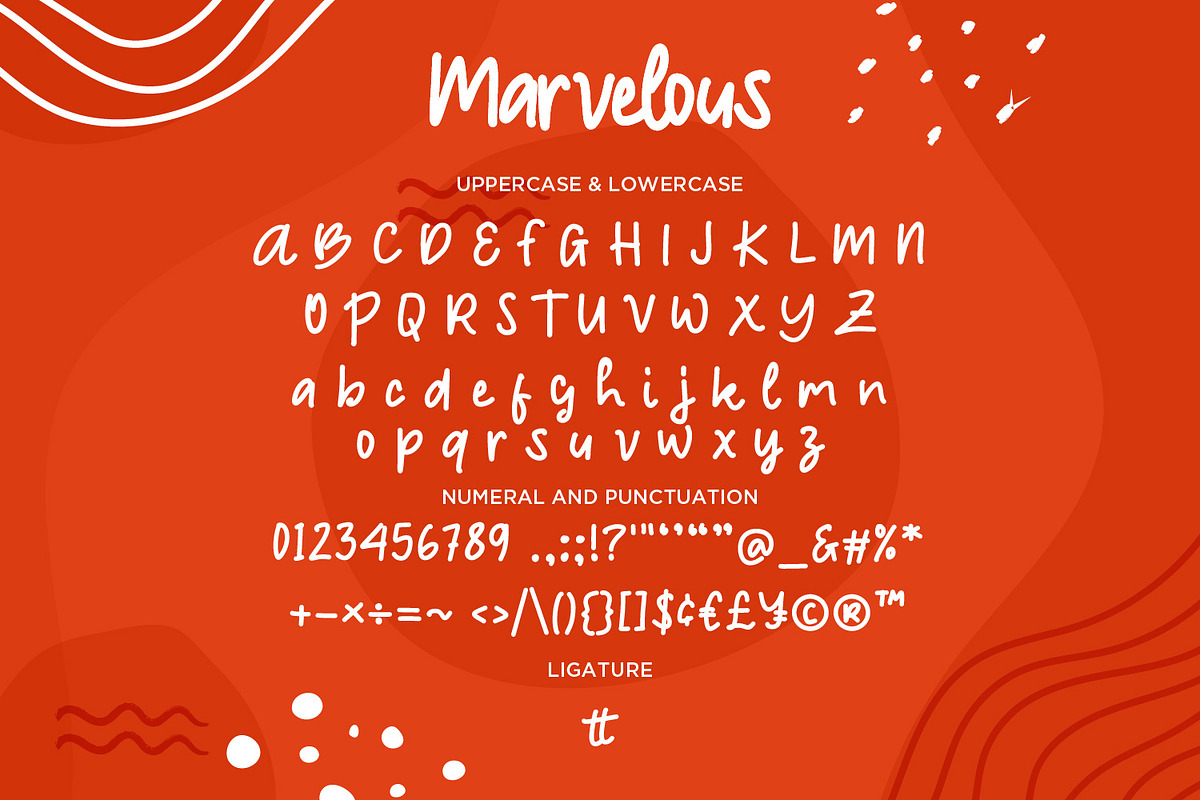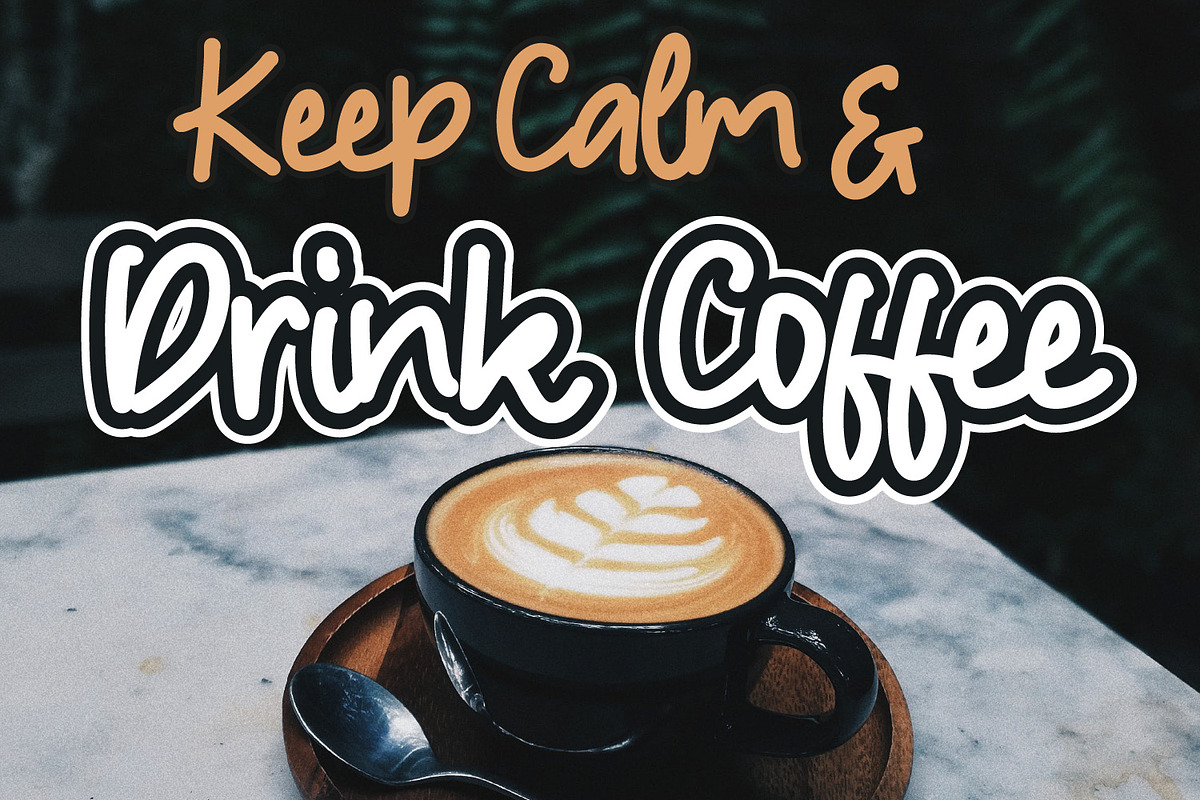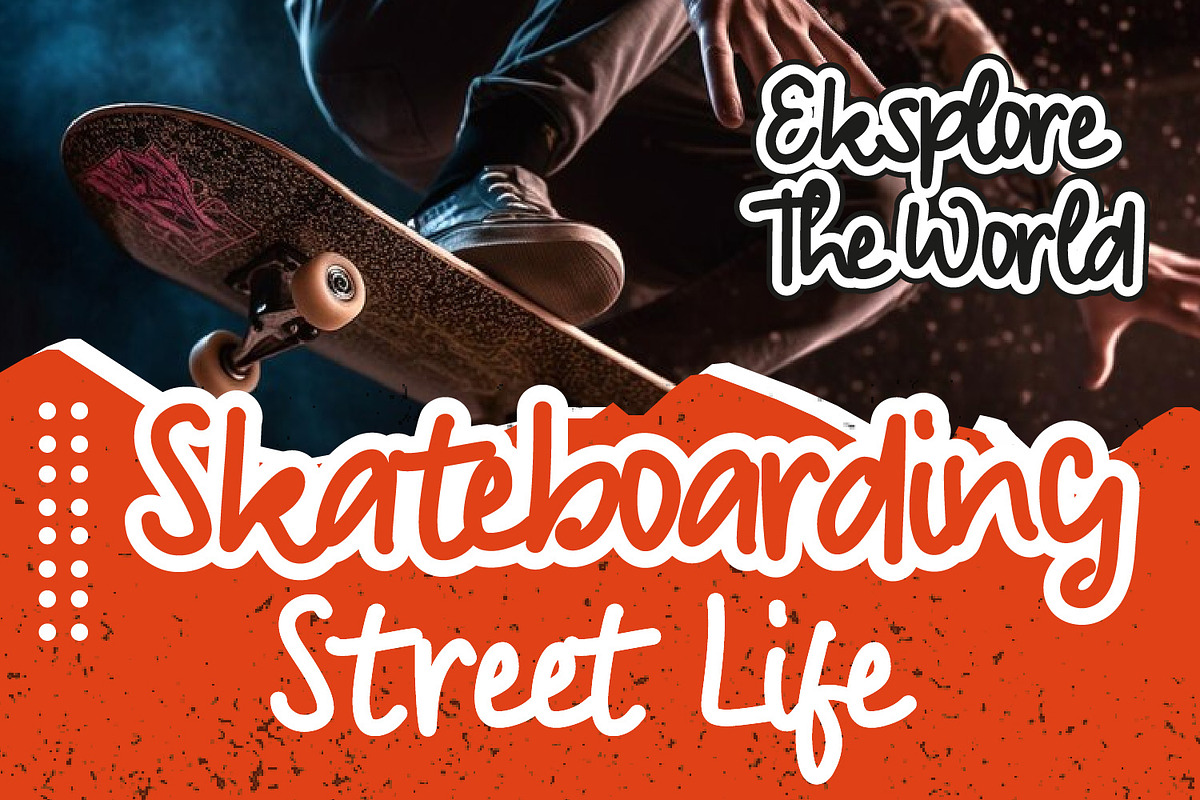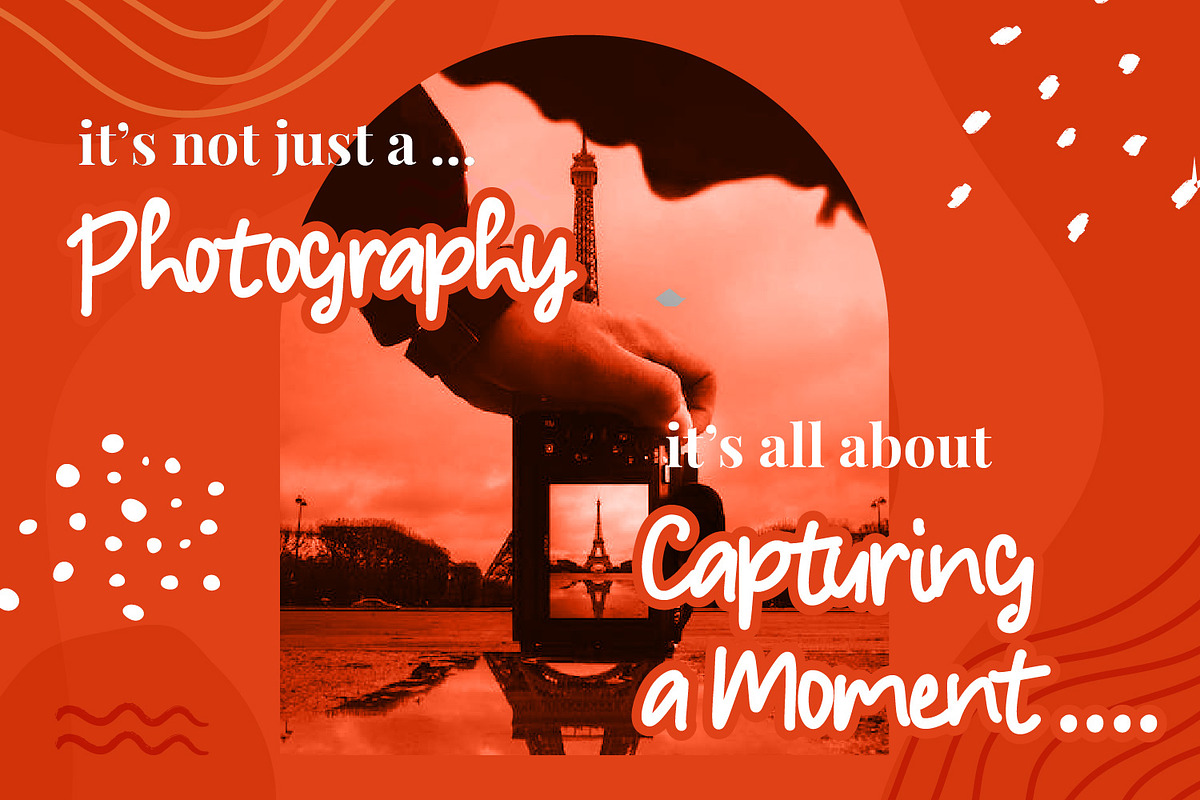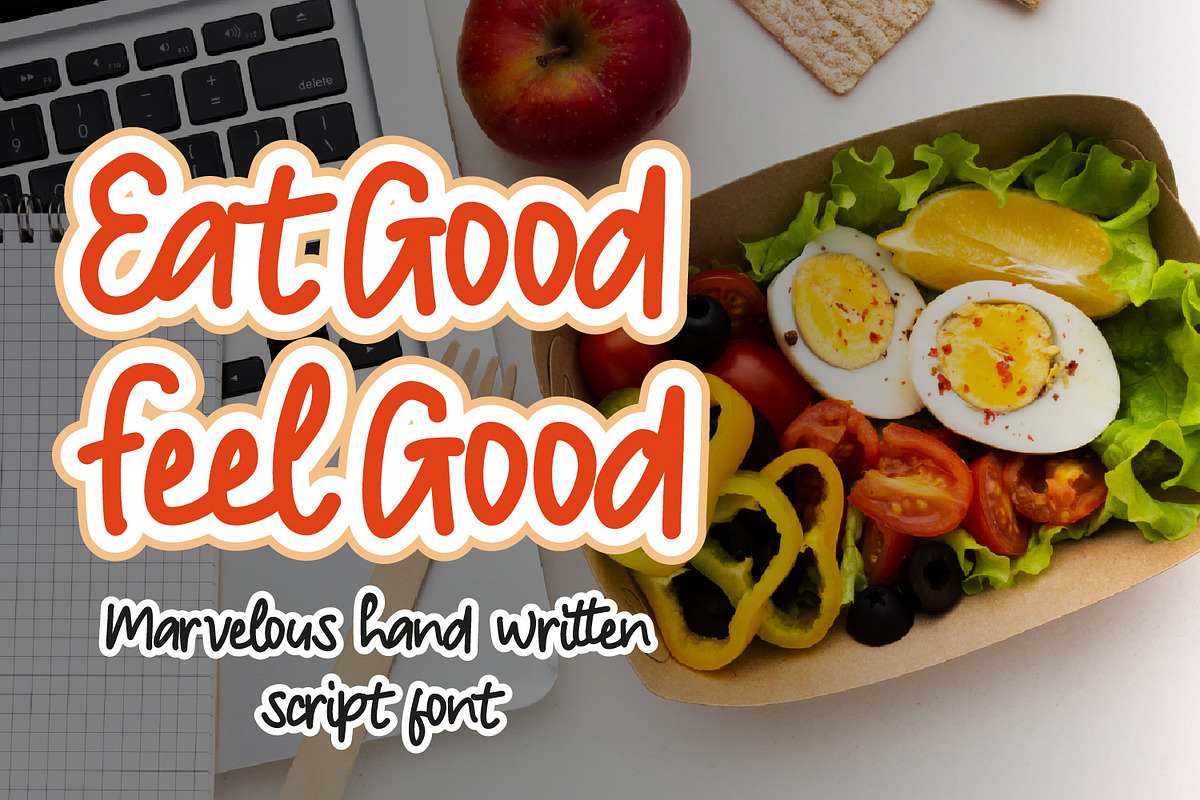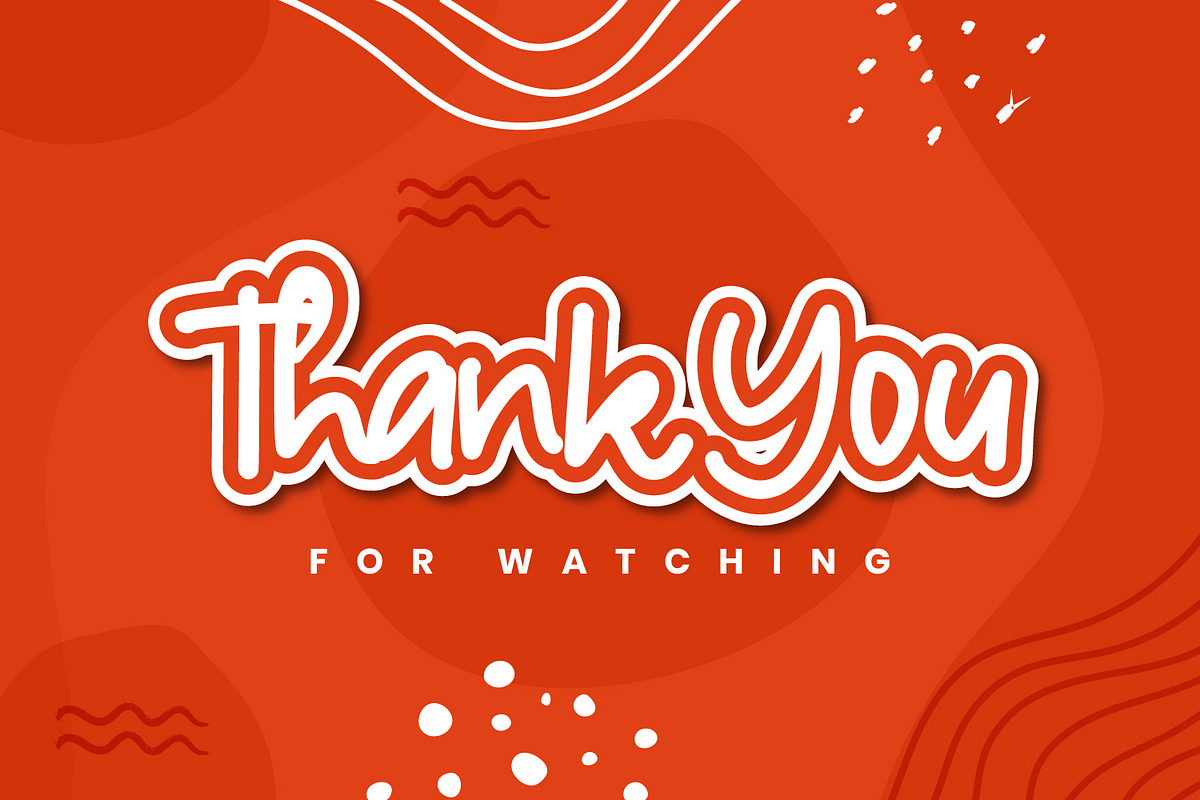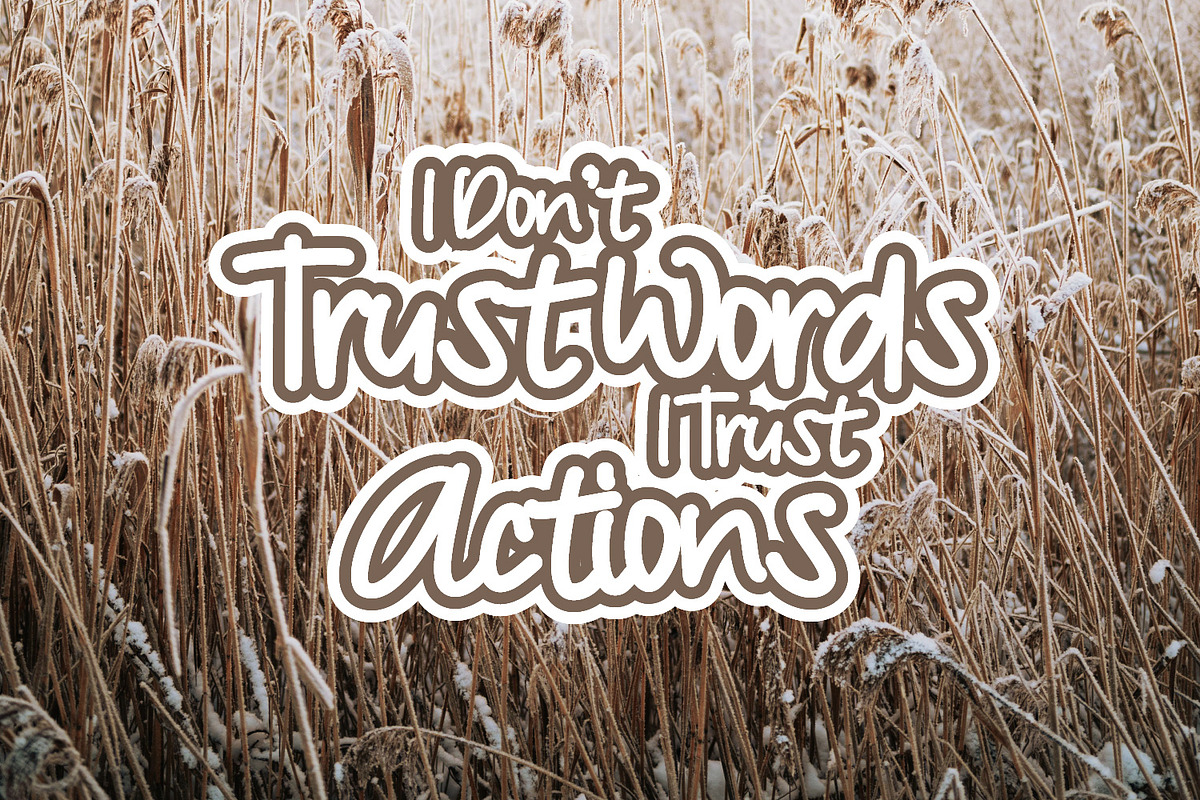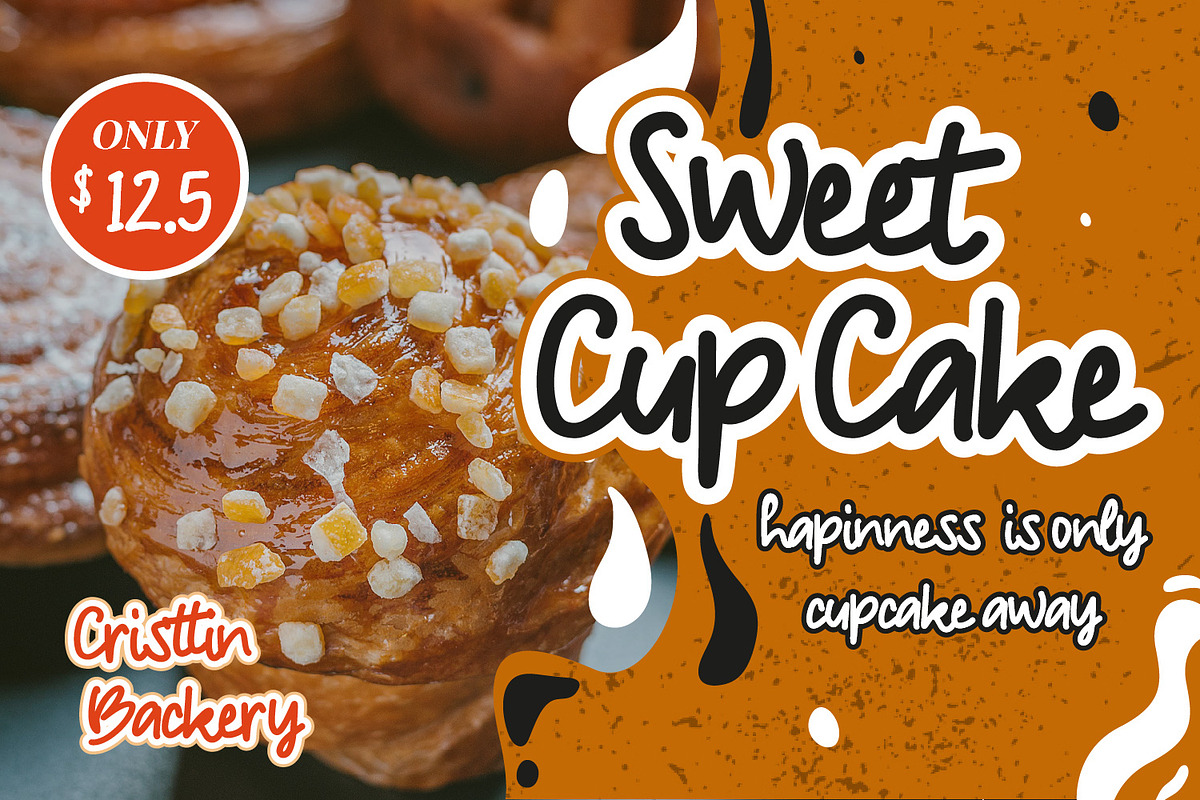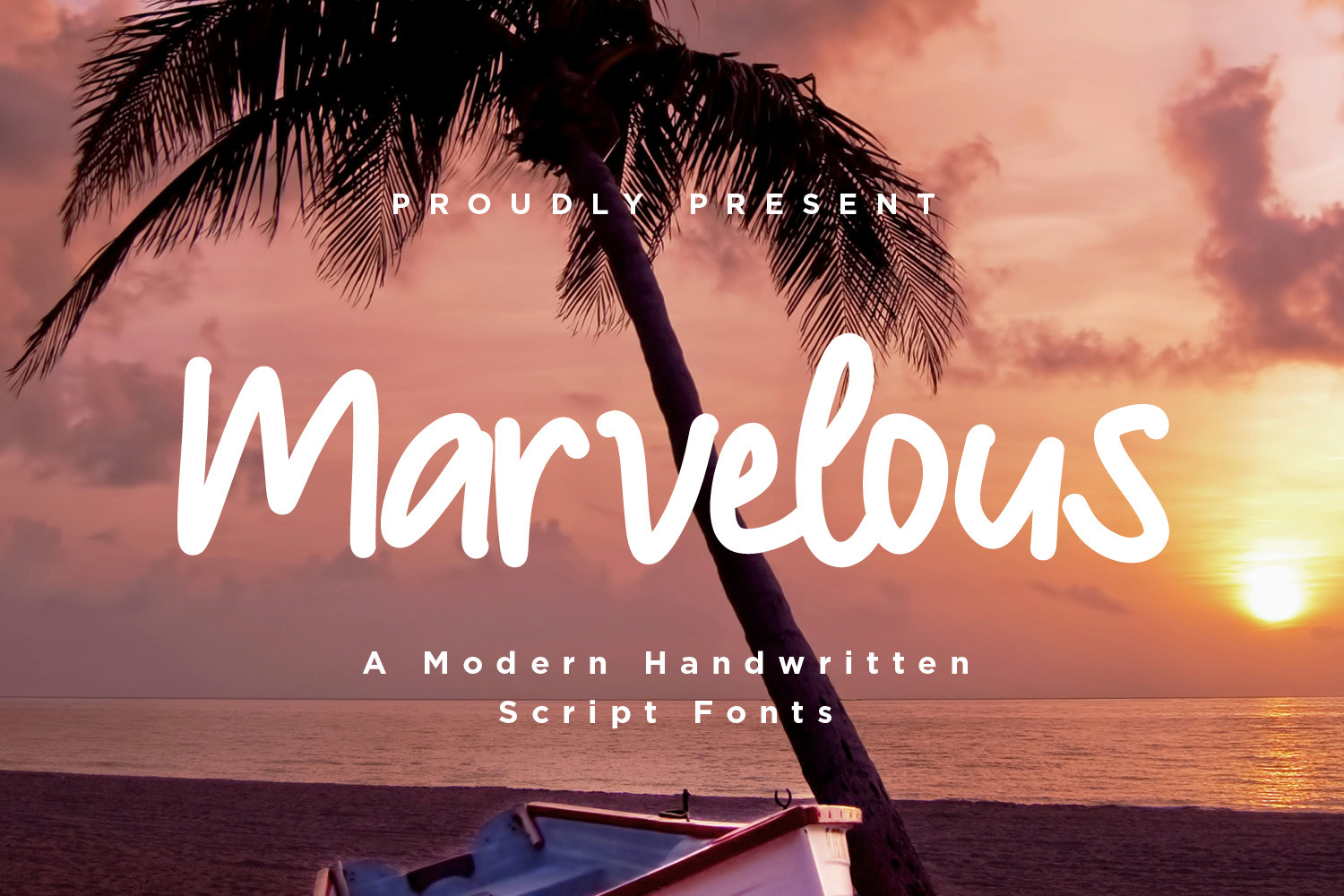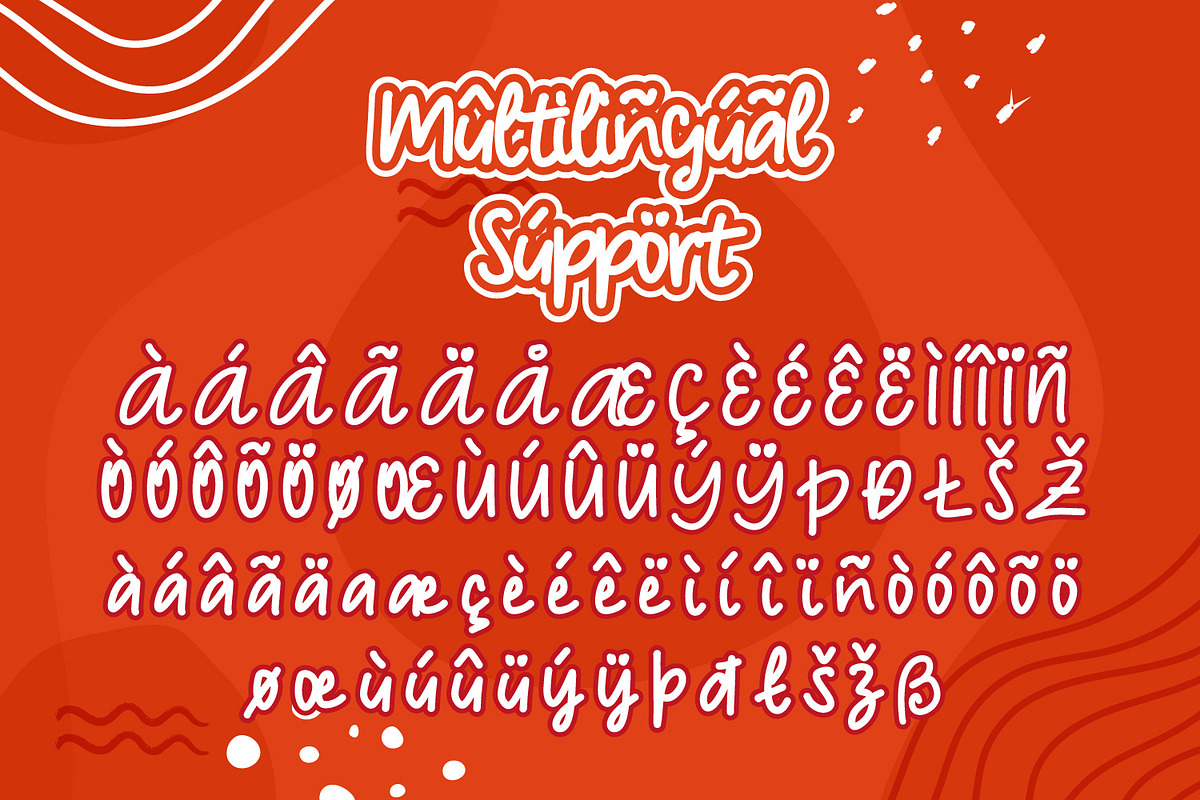
Marvelous - Handwritten Script fonts
Marvelous is a Handwritten Script font, will be suitable for any projects such as branding, promotional ads, quotes design, merchandise, social media and much more. make your work or your business to high level!!! special events, and all your other lovely projects that need beautiful handwriting taste.